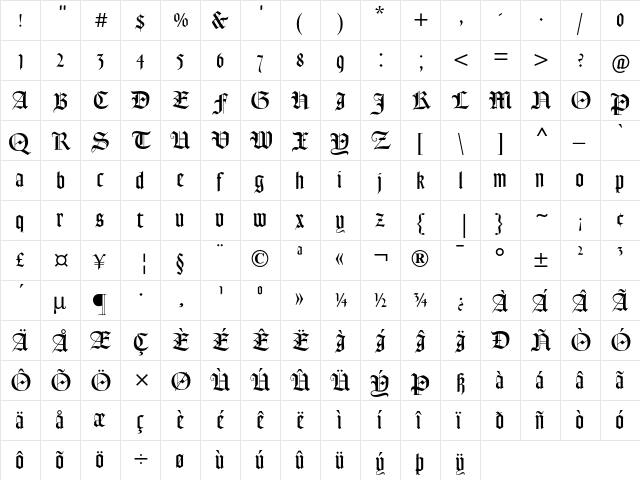
Goudy Text MT Regular Font Preview
Goudy Text MT Regular
Goudy Text MT Regular Font Details
Design Context for Goudy Text MT Typeface
Goudy Text MT is a composed and adaptable typeface that performs quietly and consistently across a wide range of design contexts.